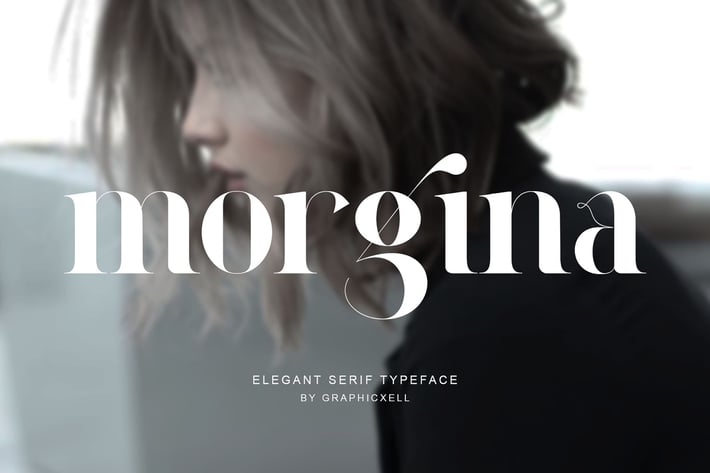
Morgina Serif Font
Morgina Serif is a stylish serif font that blends classic charm with a modern look. It works well for many design projects. For example, you can use it for logos, magazines, websites, or branding. Morgina Serif gives your text a clear and elegant feel, making it easy to read.
Key features include:
- Clean serif style that adds a professional touch
- Clear and readable at any size, perfect for print and screen
- Smooth curves with sharp edges that add style
- Great for headlines, body text, logos, and packaging
This font is carefully made with balanced spacing and neat shapes. Also, it pairs well with sans-serif fonts to create nice contrasts. This helps guide the reader’s eye through your design. Additionally, words like "also," "however," and "whether" keep your writing smooth and natural.
Morgina Serif fits well in many places such as invitations, blogs, and business cards. Moreover, it has a classic feel but still looks fresh and modern. Therefore, it is a smart choice for designers who want to blend old and new styles.
Using Morgina Serif will help your text look smart and stylish. Besides that, the font is flexible and easy to use. As a result, it helps create strong brands that catch attention.
In short, Morgina Serif offers beauty, clarity, and many uses. Thus, it is a great font for any creative project.
Key features include:
- Clean serif style that adds a professional touch
- Clear and readable at any size, perfect for print and screen
- Smooth curves with sharp edges that add style
- Great for headlines, body text, logos, and packaging
This font is carefully made with balanced spacing and neat shapes. Also, it pairs well with sans-serif fonts to create nice contrasts. This helps guide the reader’s eye through your design. Additionally, words like "also," "however," and "whether" keep your writing smooth and natural.
Morgina Serif fits well in many places such as invitations, blogs, and business cards. Moreover, it has a classic feel but still looks fresh and modern. Therefore, it is a smart choice for designers who want to blend old and new styles.
Using Morgina Serif will help your text look smart and stylish. Besides that, the font is flexible and easy to use. As a result, it helps create strong brands that catch attention.
In short, Morgina Serif offers beauty, clarity, and many uses. Thus, it is a great font for any creative project.